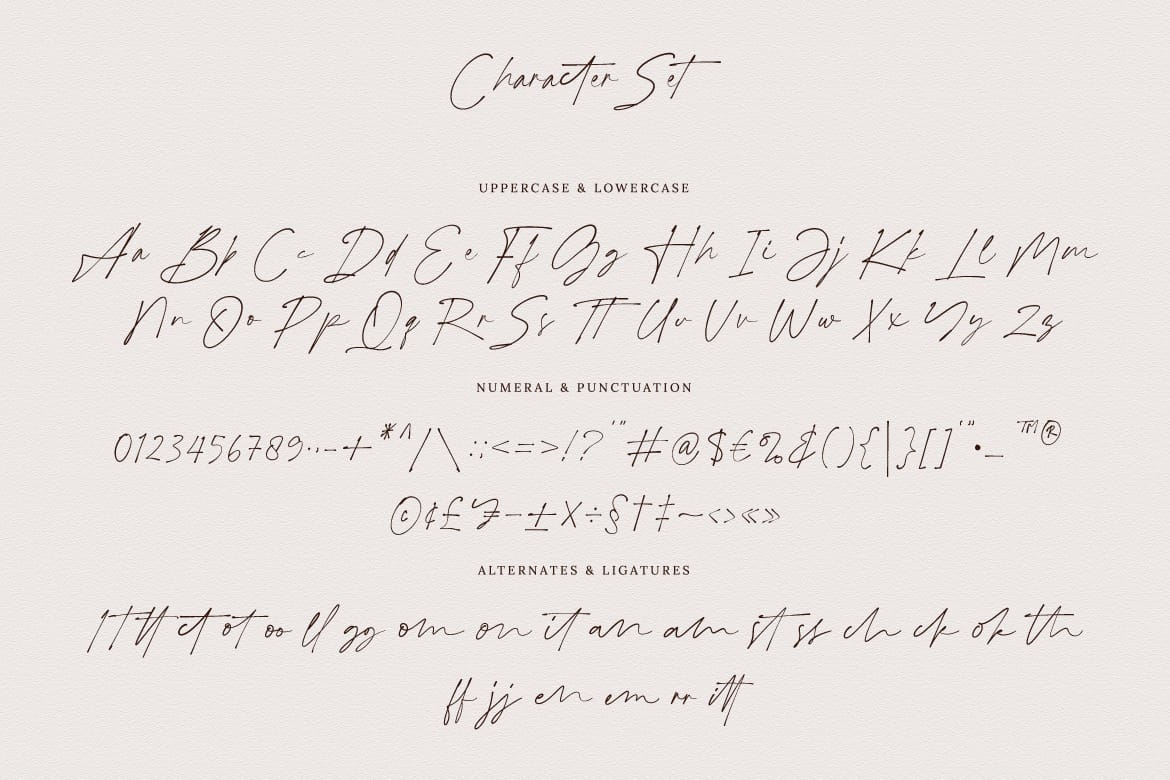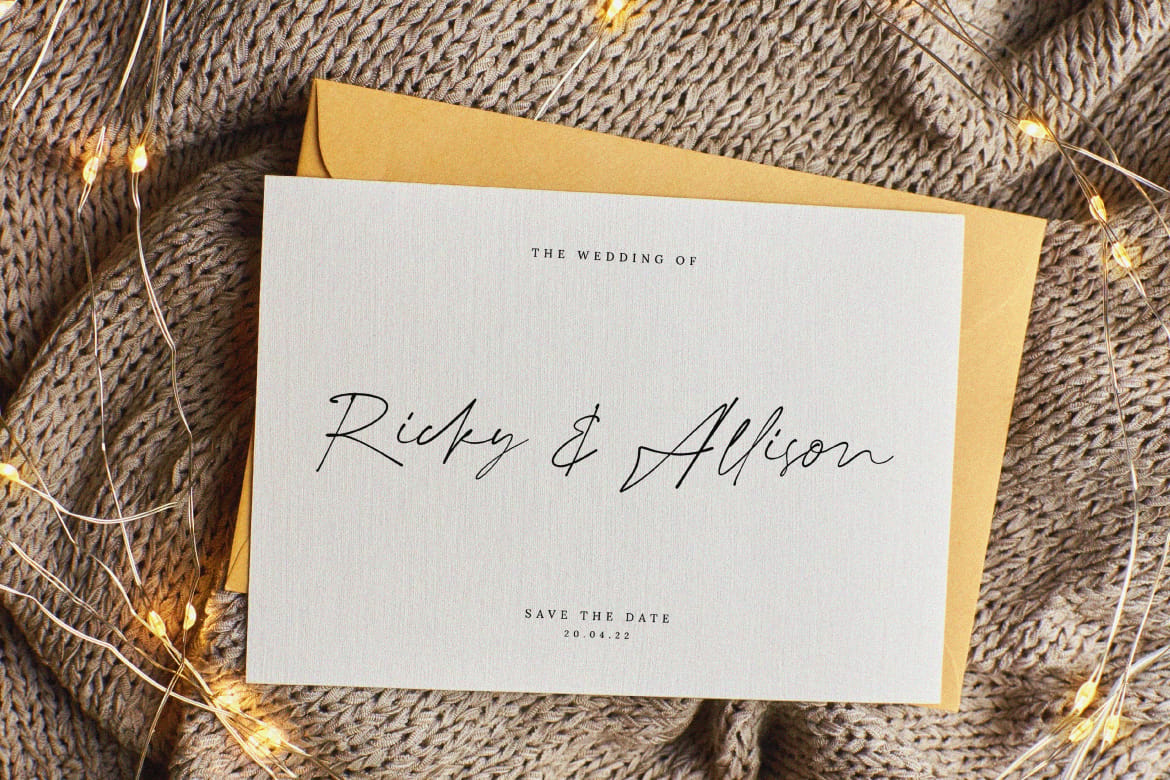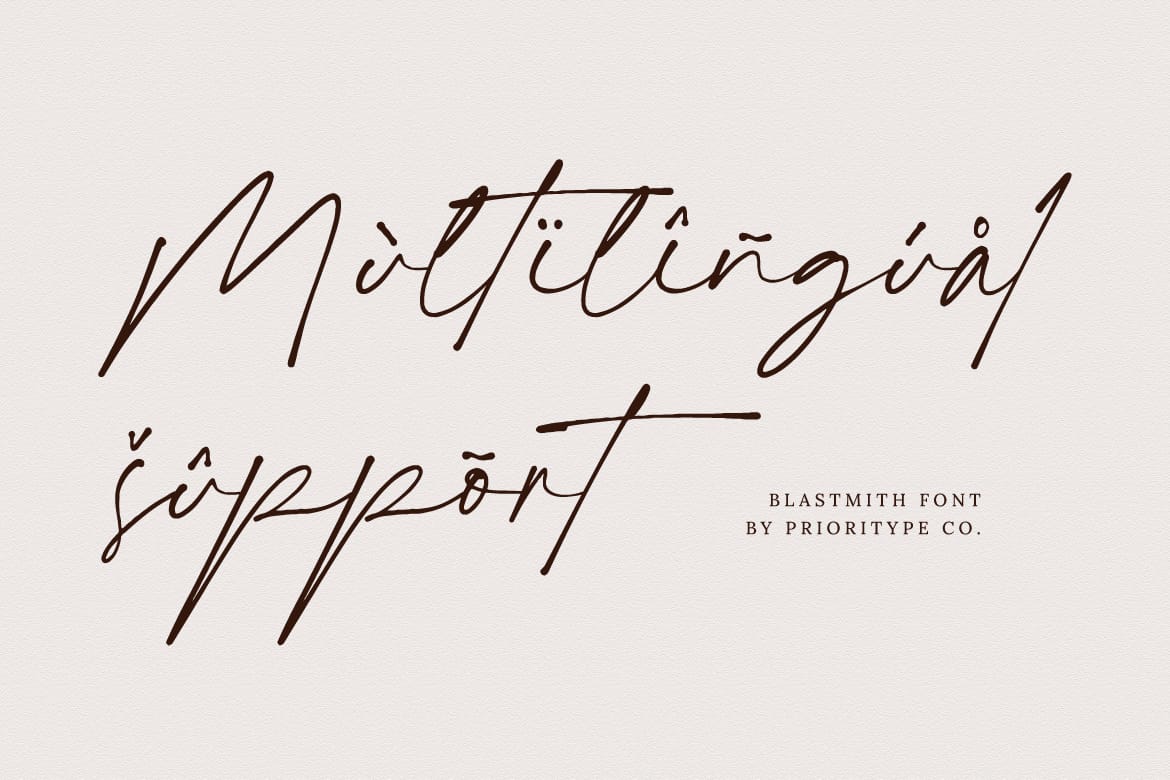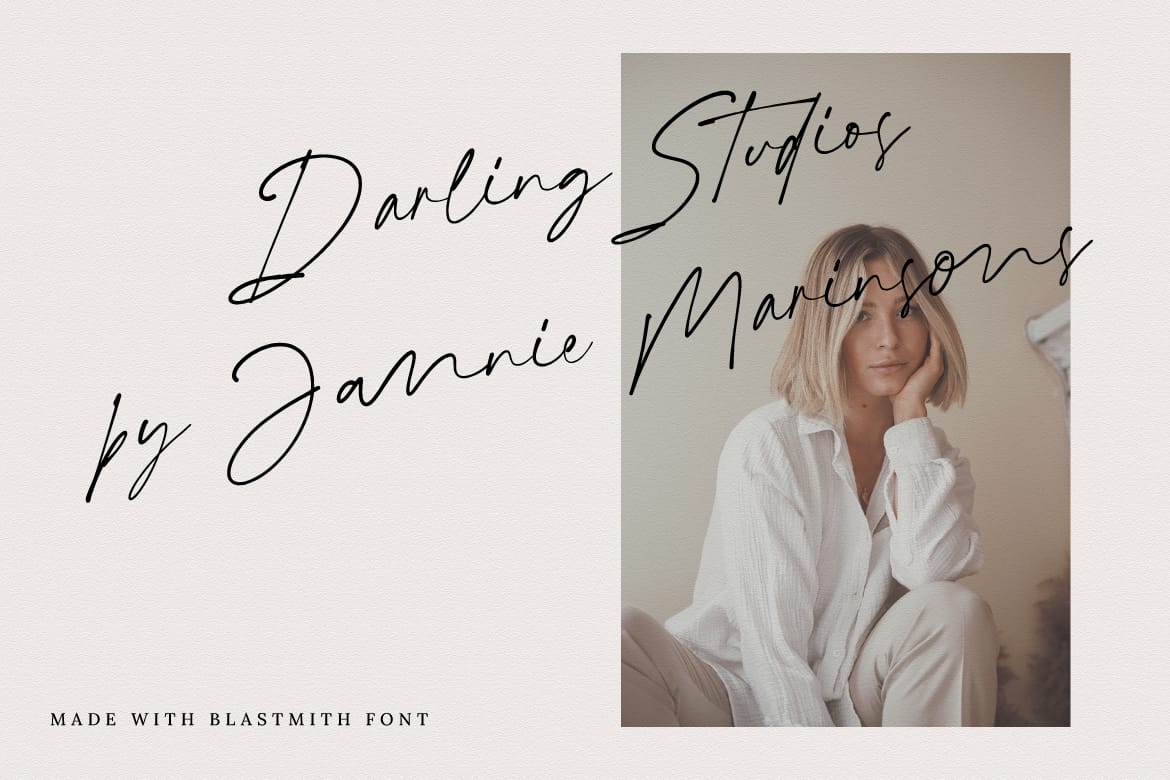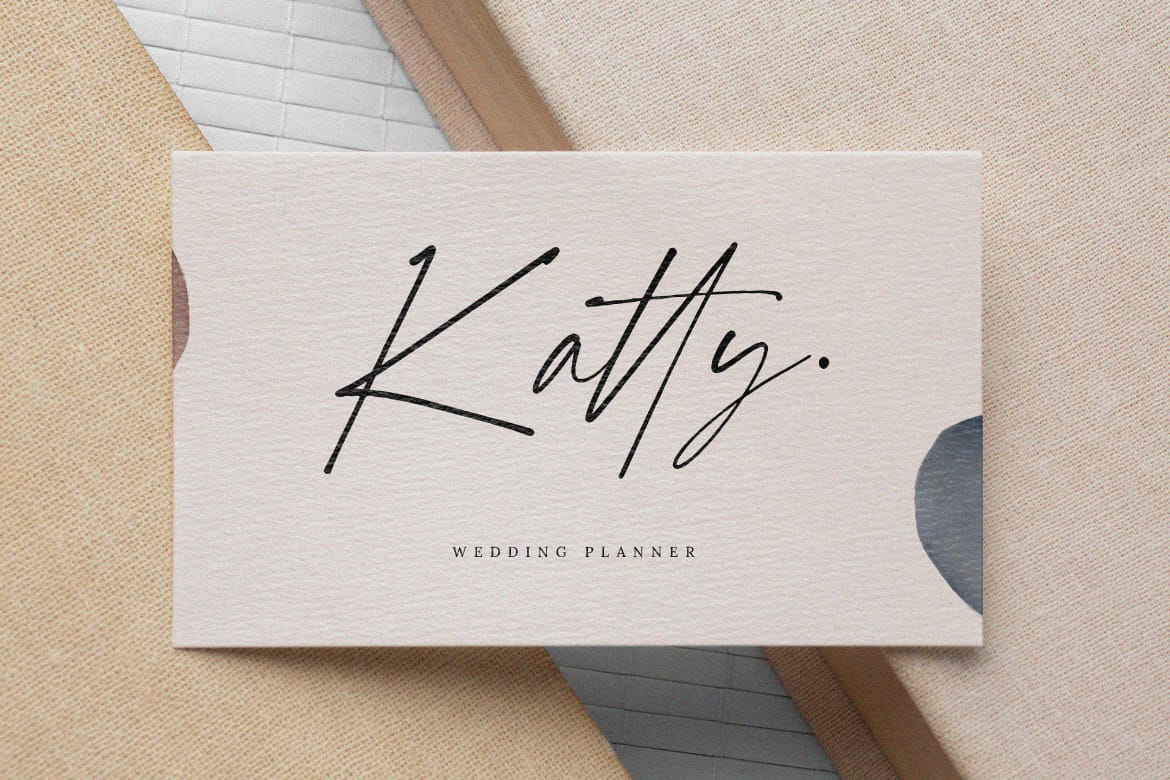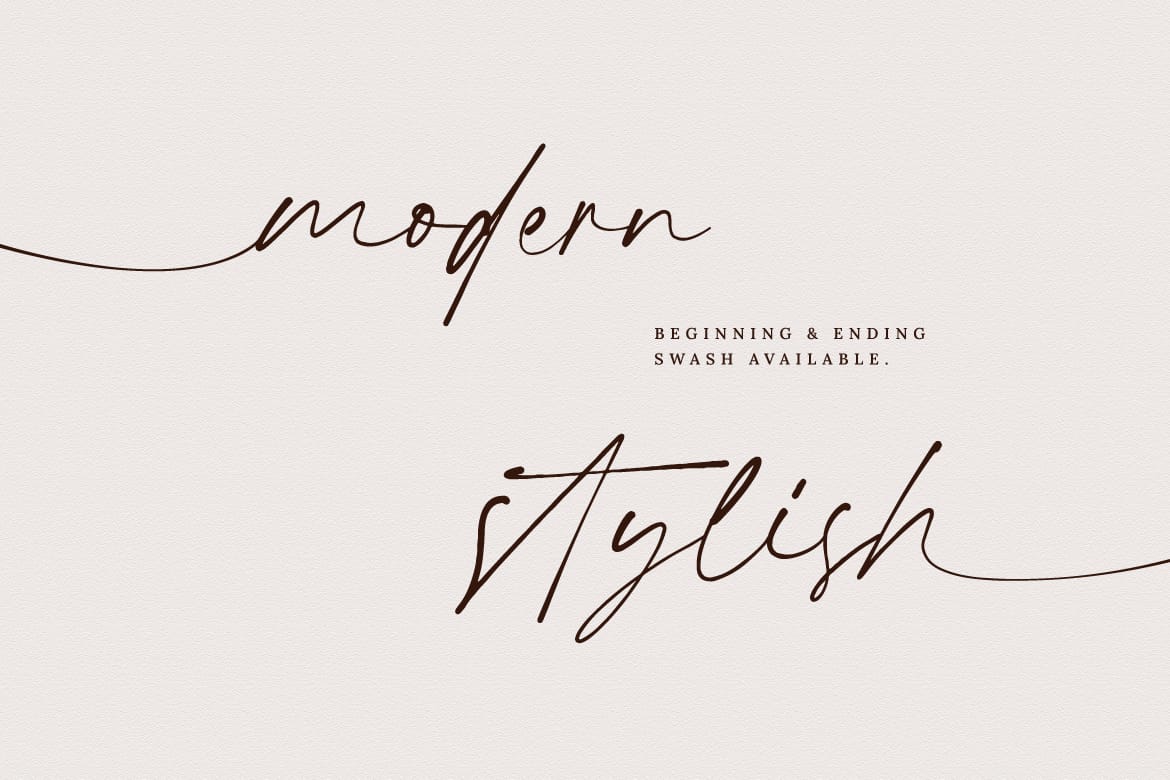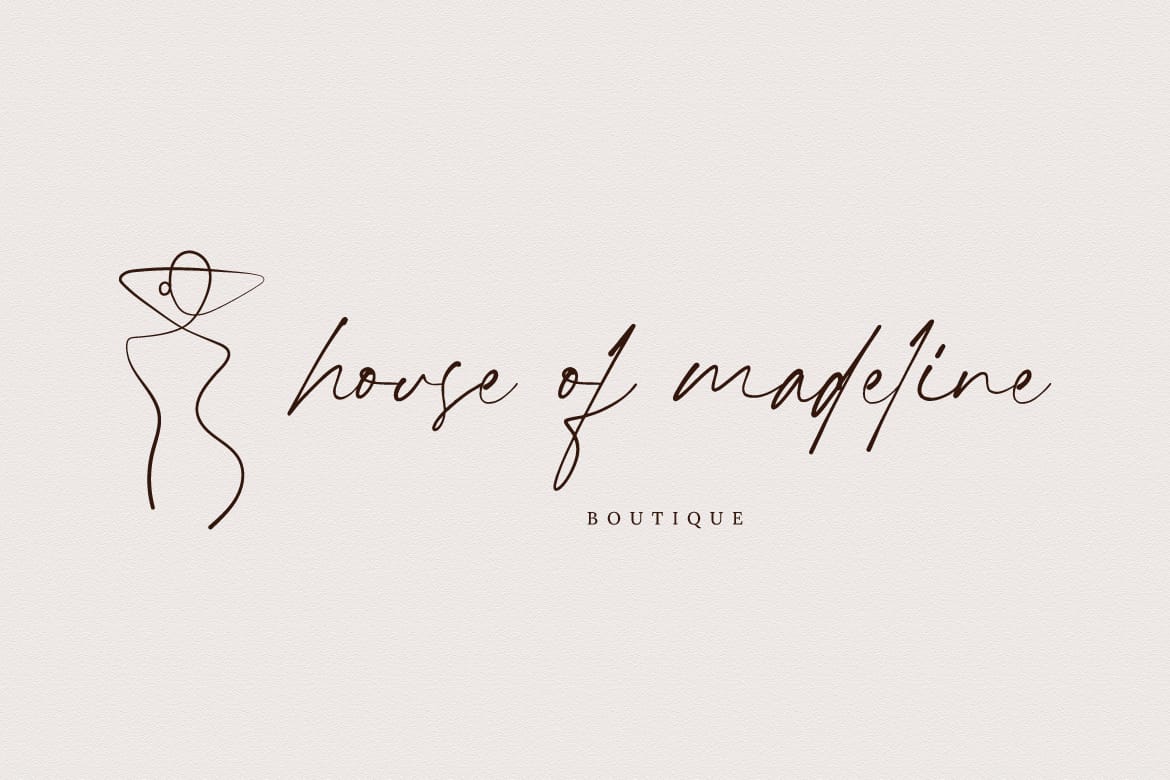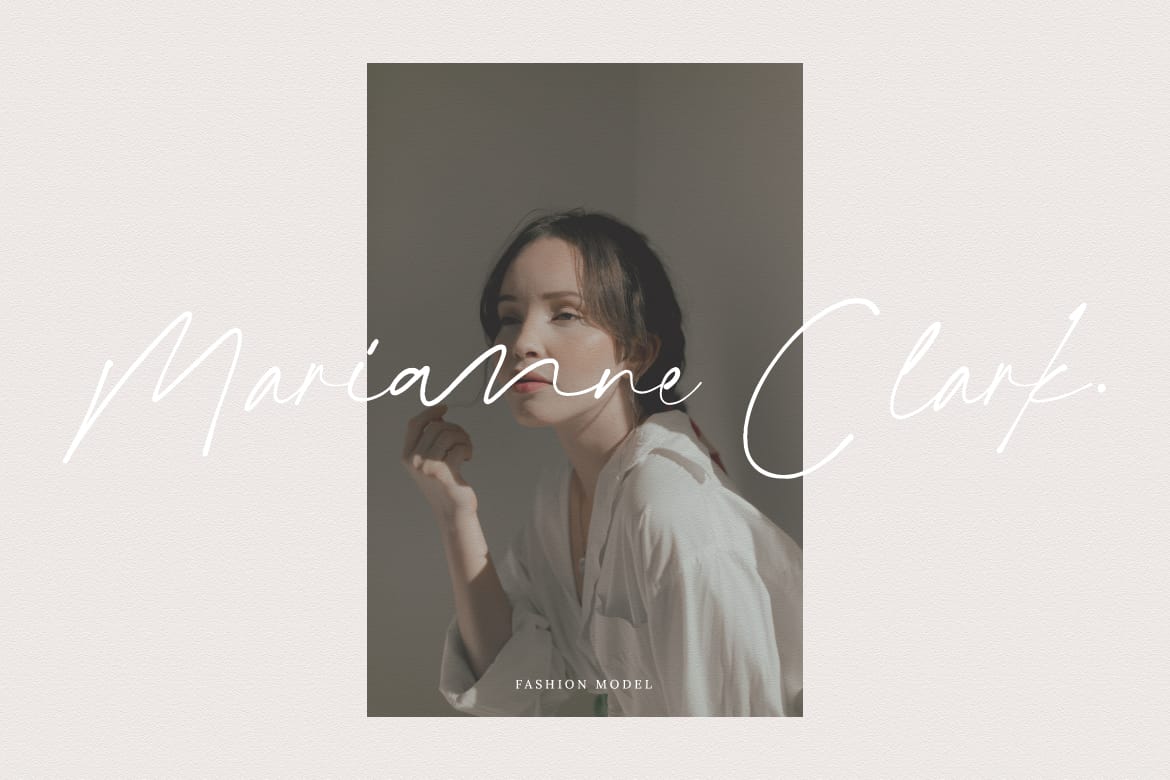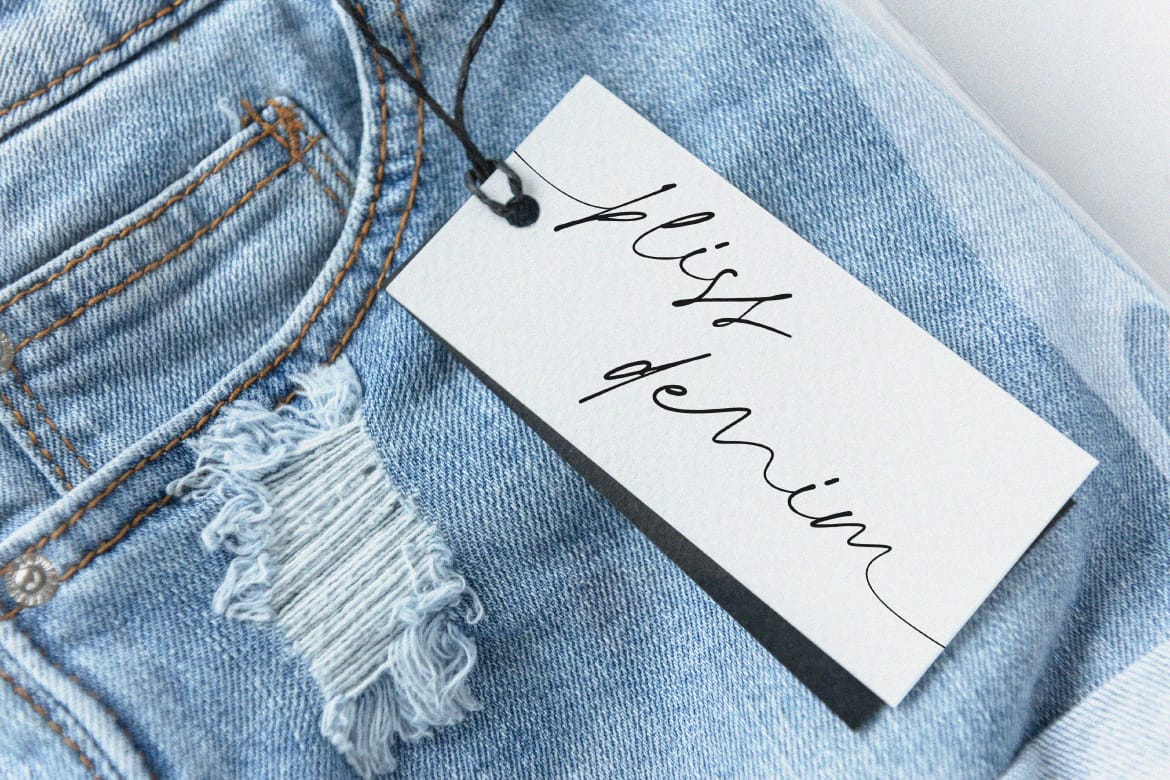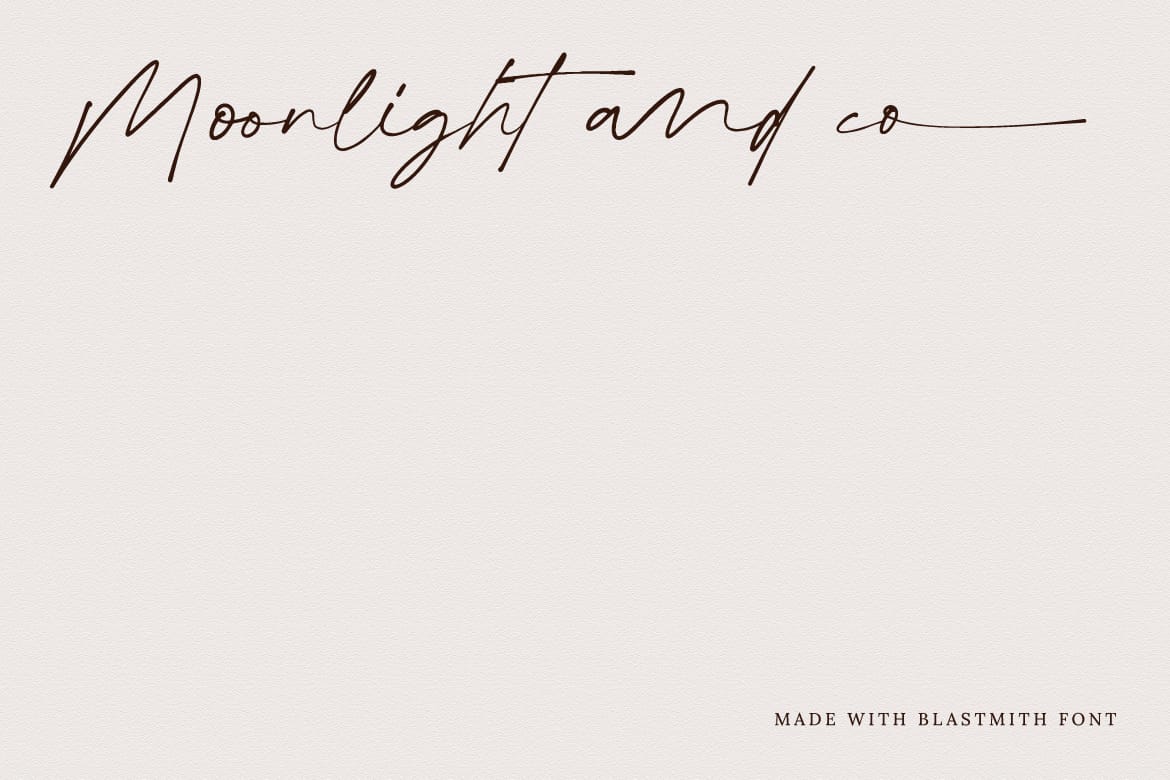
Blastmith - Stylish Signature Font
Introducing a new cursive typeface. Yes, "Blastmith" is a modern and stylish font with signature-like characteristics. The presence of several ligatures and swash characters adds a natural impression to this font. Suitable for invitation design, branding, quotes, business cards or social media posts. Features: Uppercase, Lowercase, Numeral, Punctuation, Multilingual, Alternates, Ligatures & PUA Encoded. Obtained file format: Otf & Ttf. For any questions please contact me :)
• Modern stylish signature script font
• Ligatures, alternates, PUA encoded